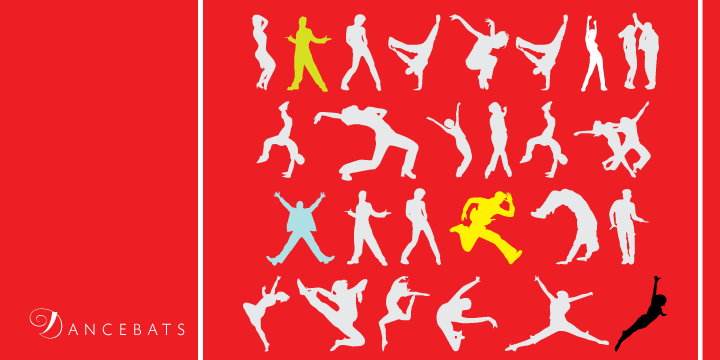
First seen on MyFonts: November 9th, 2004 DancebatsAccording to the two most popular statistics companies in England and North America, eight out of every ten people like to dance. Talk about useless information! But with such a market statistic, we thought there would be some collections of dingbats out there with dancers in them. And surprise, surprise; we found not even one! So this was our opportunity to be the first to issue such a collection, and we are very pleased with the results. Dancebats is a font of 75 silhouettes of people dancing. All kinds of dancing. Ballet, techno, slam, rock, swing, aerobic, hip hop, jump, lounge, and much more. Take a close look at the silhouettes and find out why these are shapes that belong on every party design, bar none. The Dancebats outlines were tweaked for use at all sizes, from the very large, as in posters and signs, to the medium height, as in party flyers, invitations and publications, to the very small, as in web banners and pin-on buttons. We are anticipating these silhouettes to be used soon all over posters, signs and web sites everywhere, so get your hands on a copy and give yourself some ammunition for your next party design. Not quite what you’re looking for? Try looking at more fonts like this. ‘Dancebats’ is a trademark of Canada Type. |